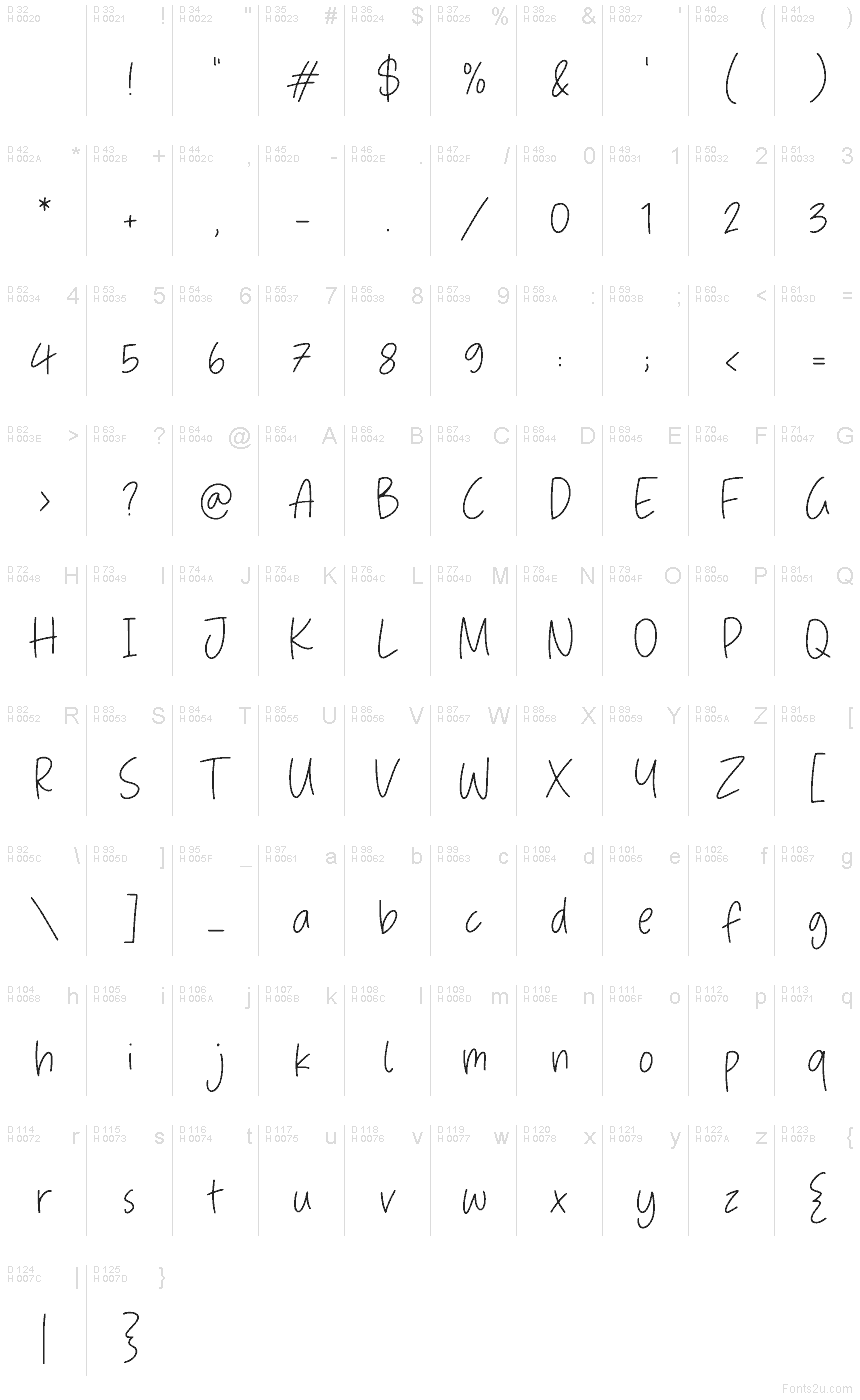
Chocolate Buttons
Chocolate Buttons font by Balpirick Studio is a light handwritten font whose beauty lies in its simple elegance and organic flow. As it embodies a casual and approachable character, this gentle font can add a modern touch to your creative projects.